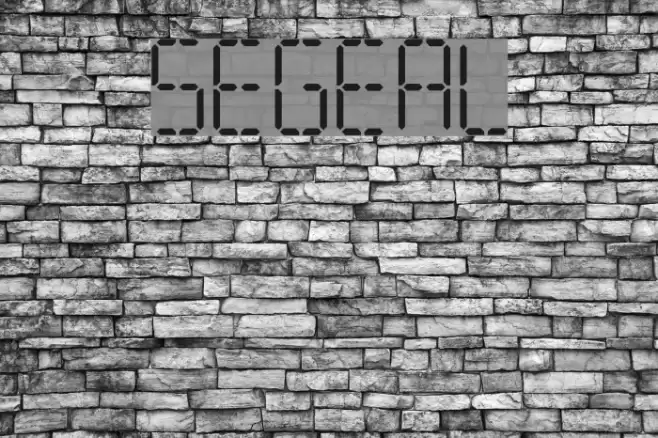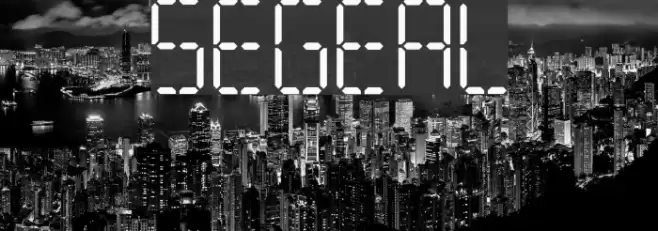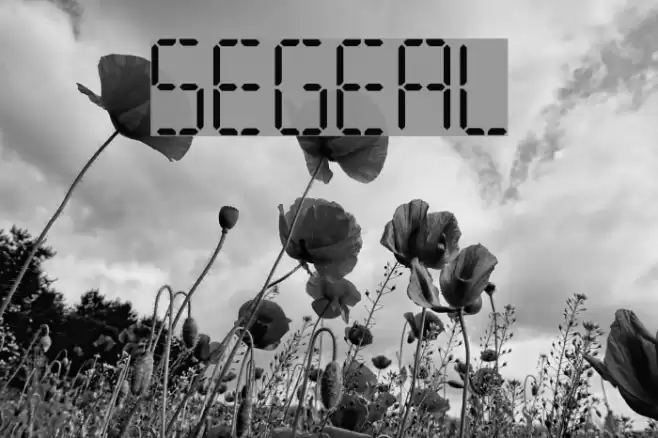
Segmental Font
Segmental Description
This font features a segmented, digital display style reminiscent of old LED or LCD screens. Each character is constructed from a series of straight lines and angles, creating a mechanical and technical appearance. The uppercase and lowercase letters, as well as the numbers, maintain a consistent geometric structure, emphasizing clarity and precision. The font's design is highly modular, with each segment forming part of a grid-like pattern, giving it a futuristic and digital aesthetic. The special characters are also designed in this segmented style, ensuring uniformity across the entire typeface. This font is ideal for projects that require a modern, tech-inspired look.
A segmented, digital display font with a geometric and technical style from Uncategorized fonts.
- Proposed Projects: Ideal for digital interfaces, tech-themed designs, electronic displays, and futuristic branding.
- Use Case: Headlines, Logos, Digital displays